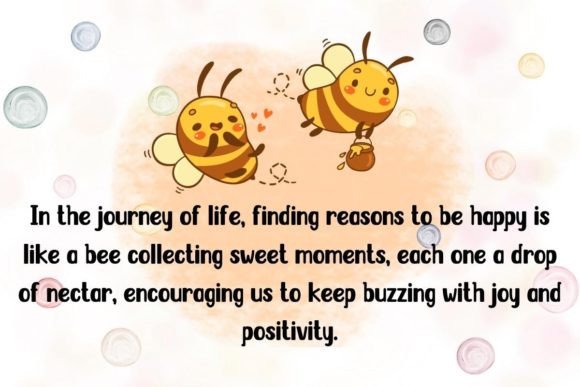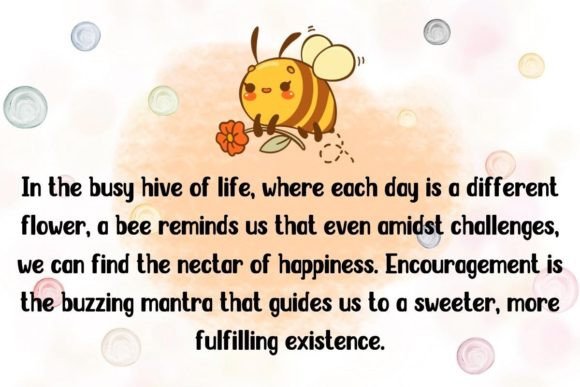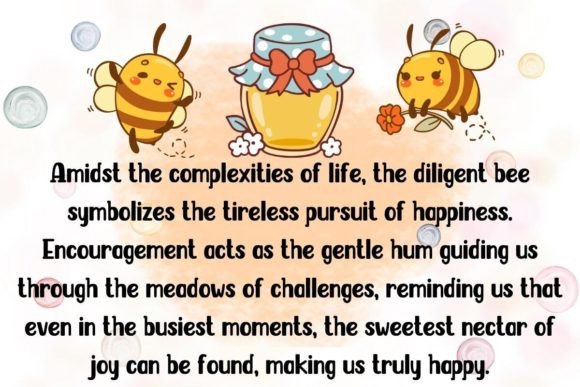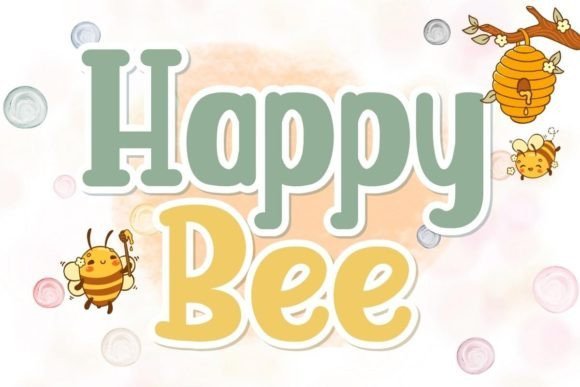
Introduction to Happy Bee Font
” Happy Bee ” is a very beautiful and cute Handwriting font.
” Happy Bee ” will help you to enjoy and have fun with your designs If it’s on a gift, card, or other item Will definitely like the recipient.
Why Choose Happy Bee Font?
Happy Bee Font offers exceptional quality and versatility, making it a valuable addition to your design toolkit. Whether you’re creating for personal projects or commercial use, Happy Bee Font delivers professional results.